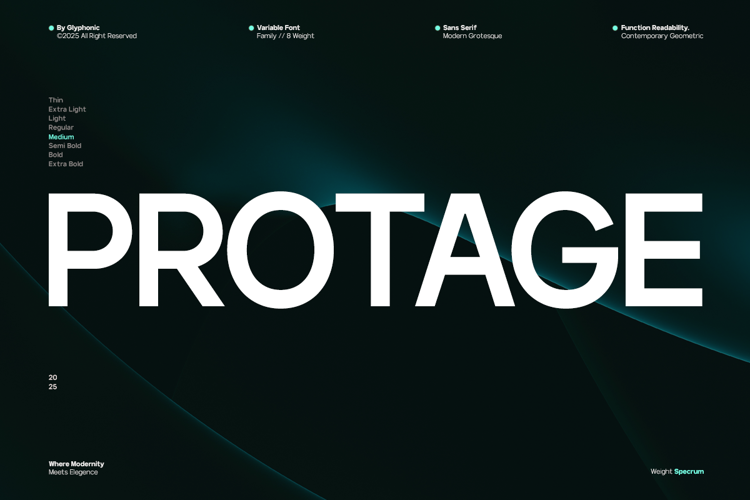
GC PROTAGE Font
GC Protage – Pure Modern Clarity is a contemporary sans serif typeface designed to deliver exceptional clarity, strength, and modern versatility. Built with clean geometry and confident strokes, it offers a powerful yet refined voice that performs seamlessly across both digital and print media. Created to express simplicity without losing character, GC Protage is ideal for branding, editorial layouts, tech-driven projects, and striking visual identities.